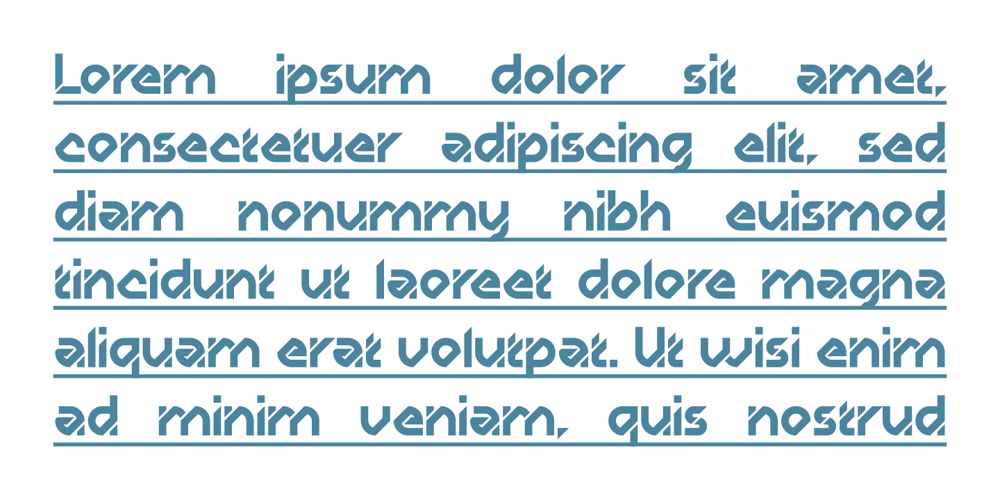
KD Diagona Font Family was designed by Zhalgas Kassymkulov and published by Kassymkulov Design. KD Diagona contains 1 styles and family package options. KD Diagona is a display, geometrical face with 45 degree diagonal cut. Letter spacing along with almost 4000 kerning pairs were designed to match the diagonal progression of the font.